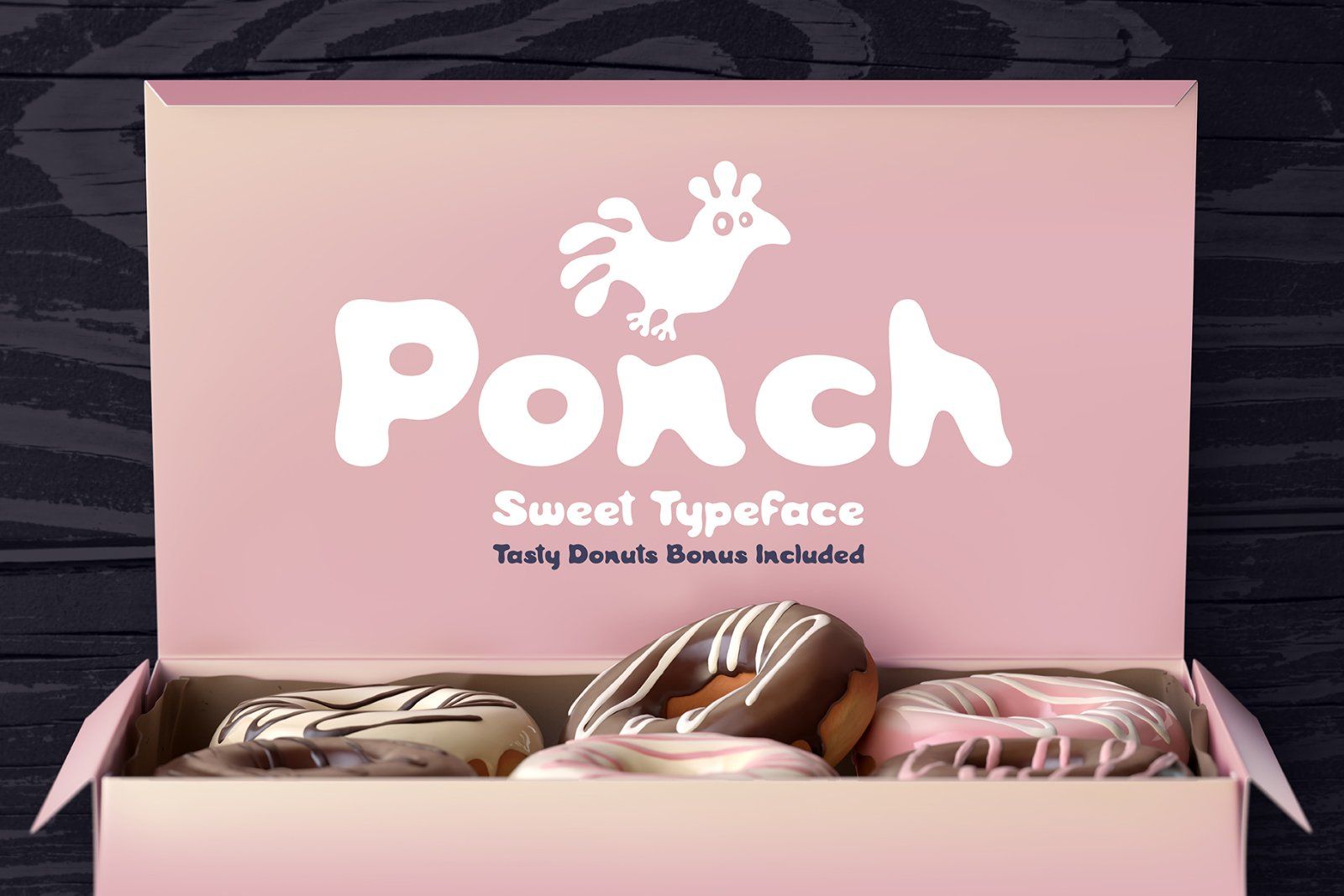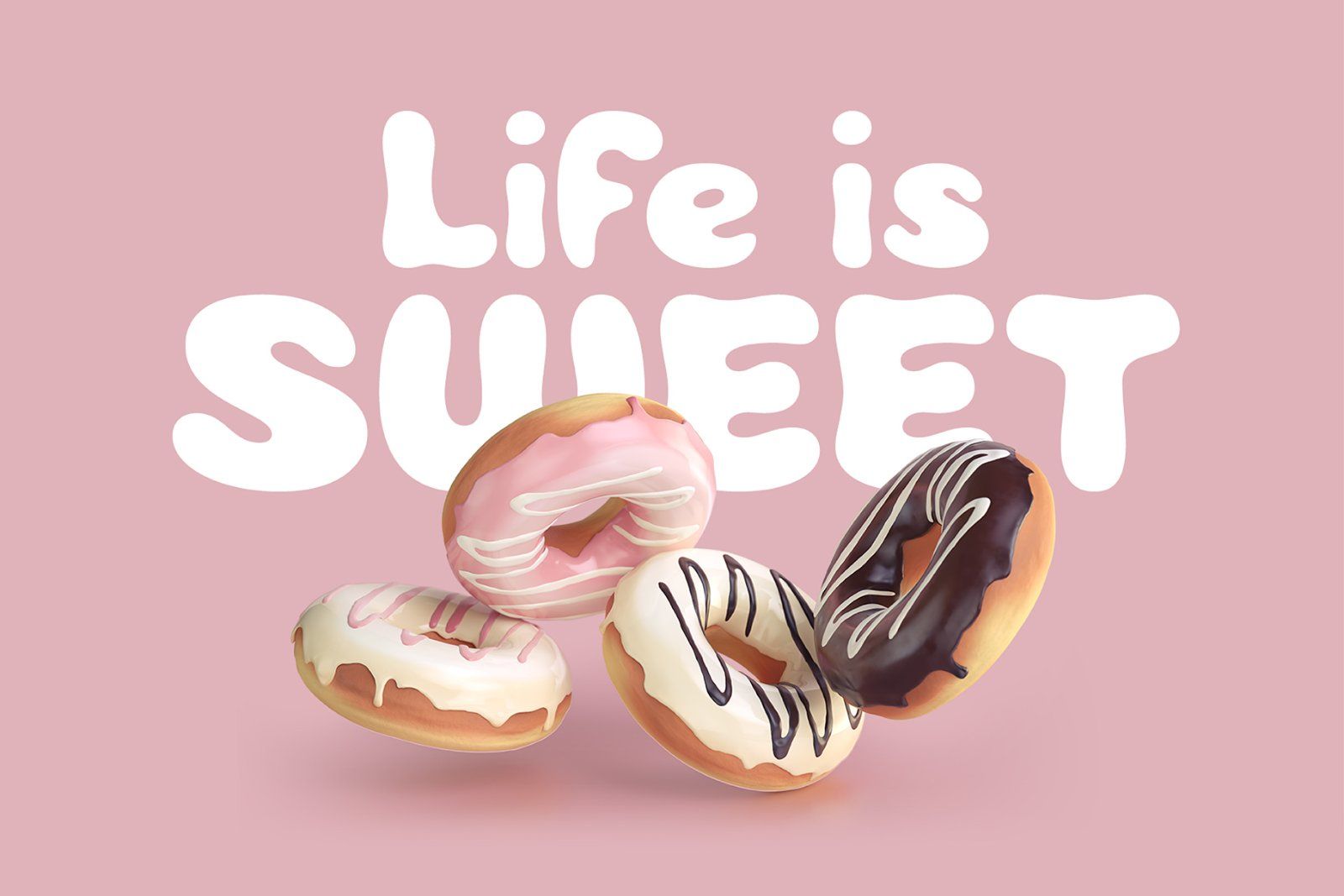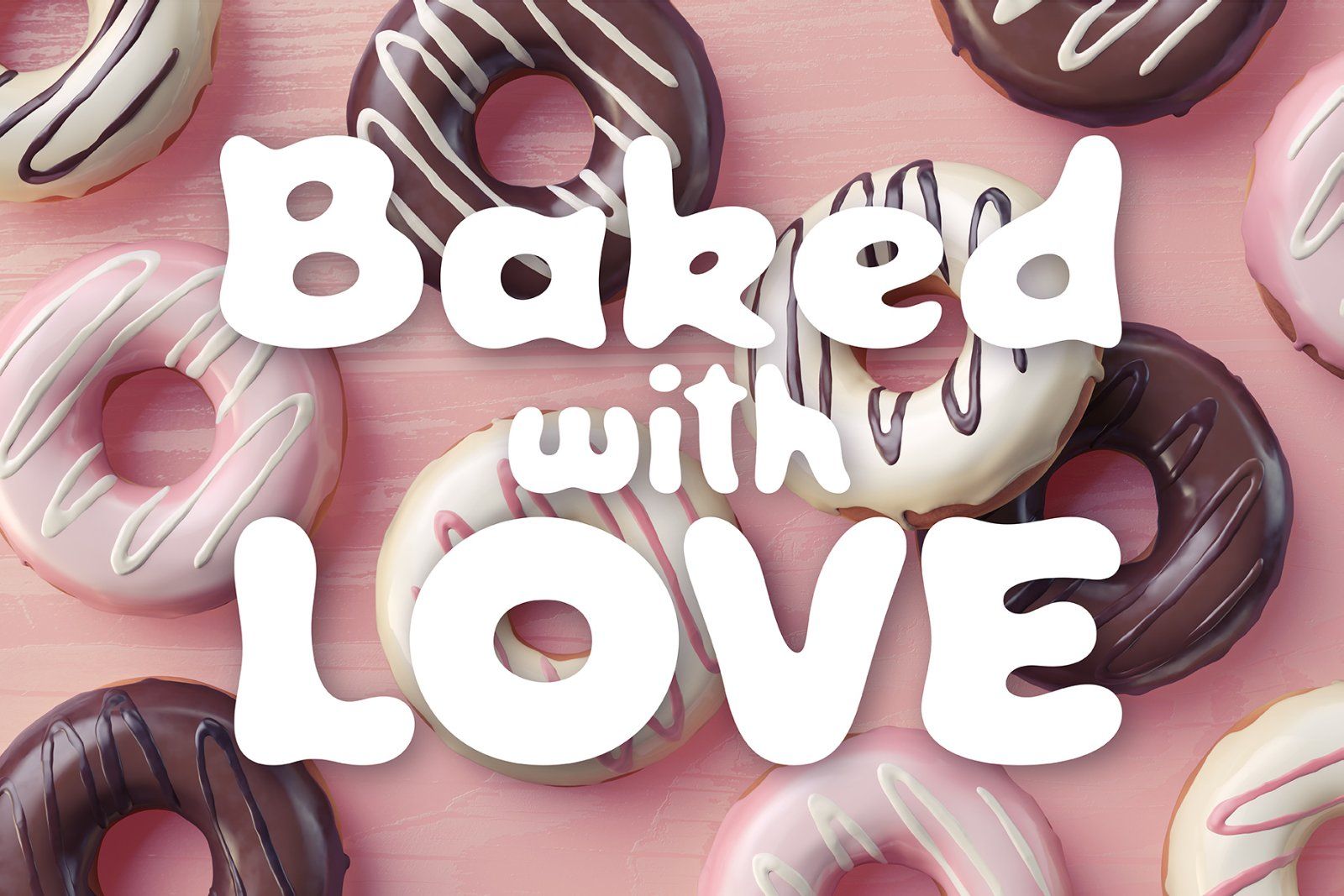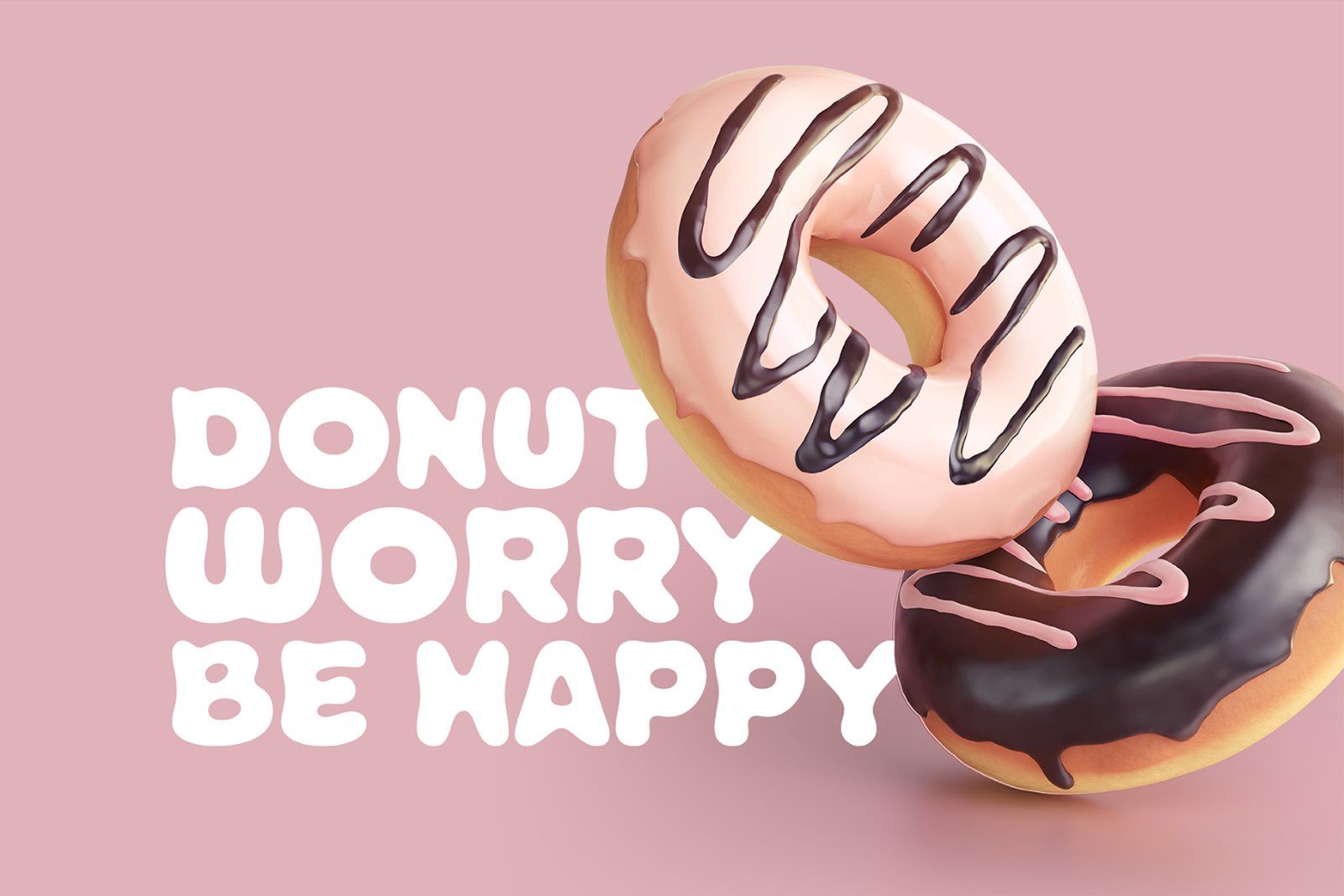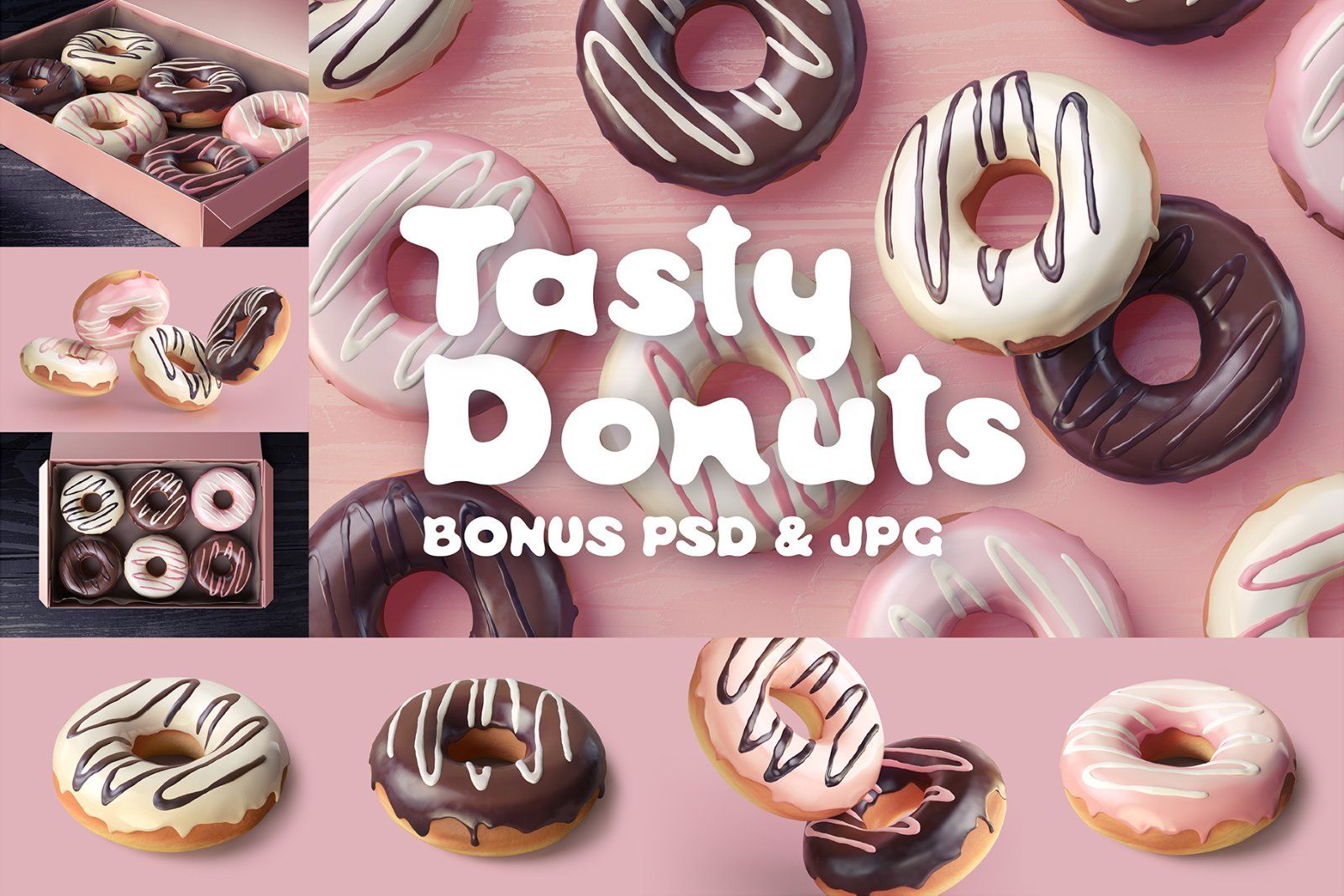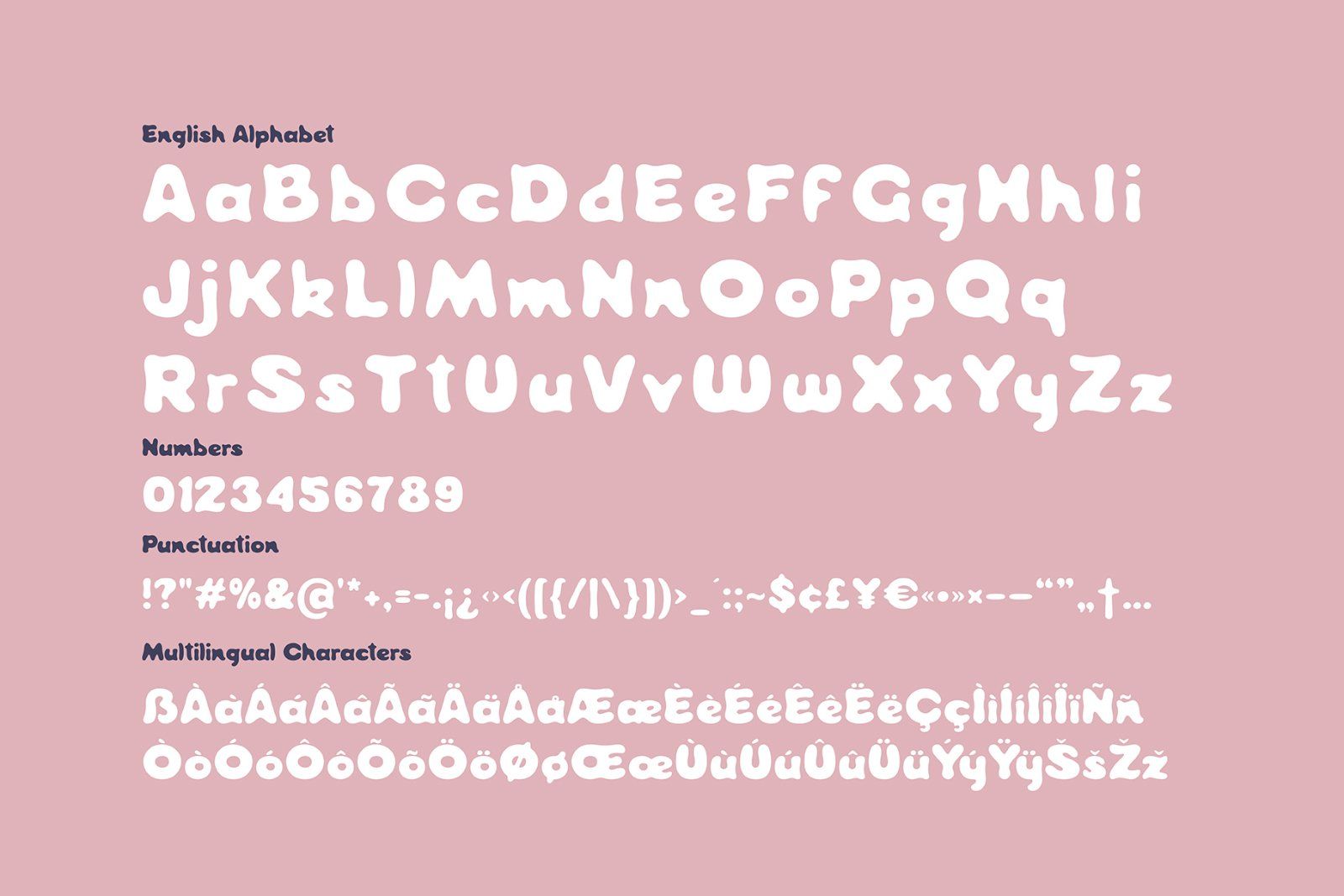
Hi, introducing a bold smooth font Ponch. It has a rounded simple shape in a childish funny style. It's perfect for various food packaging, logo design and lettering compositions. Ponch font has a west European multilingual support, check out a screenshot with all available characters.